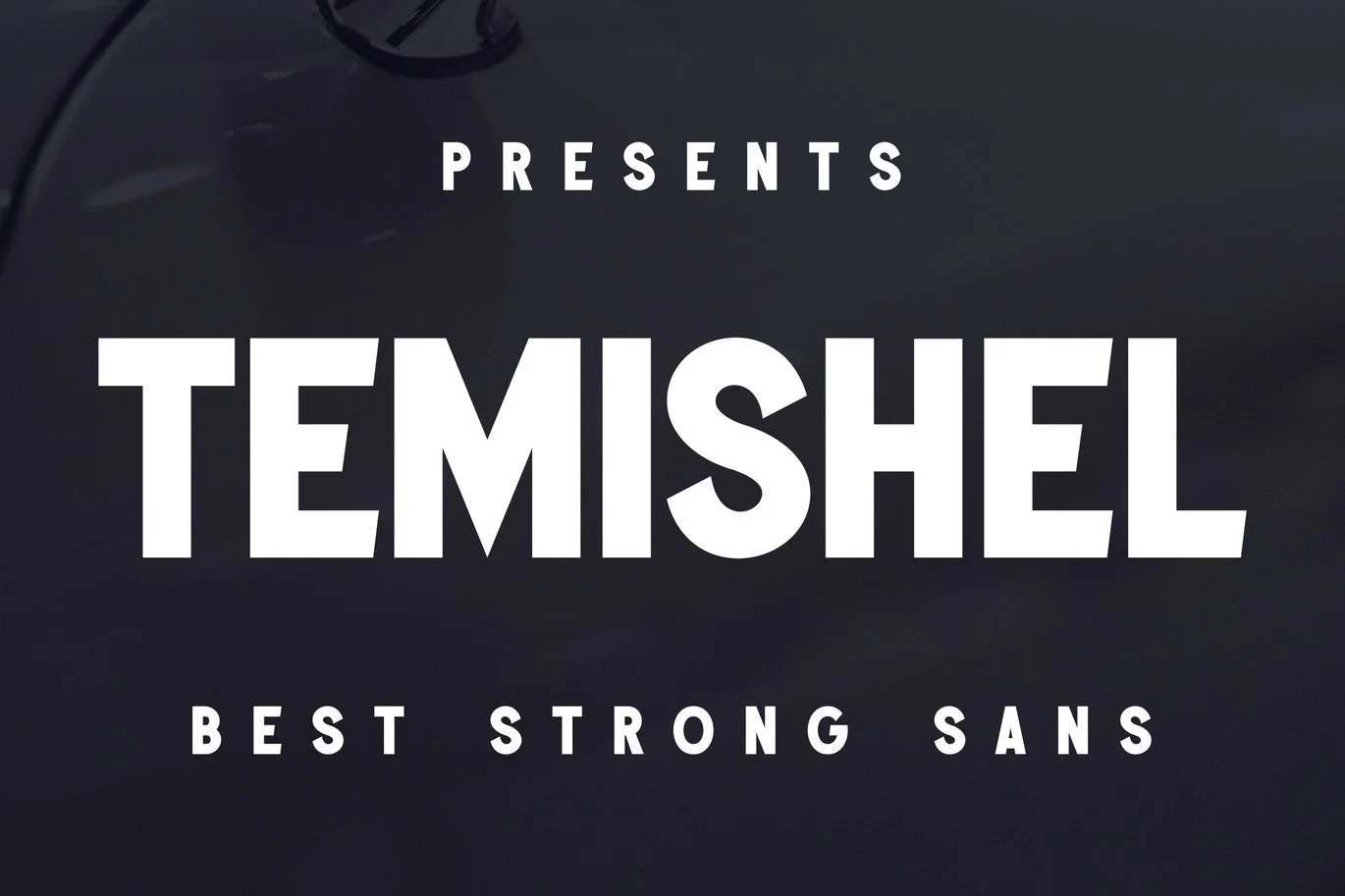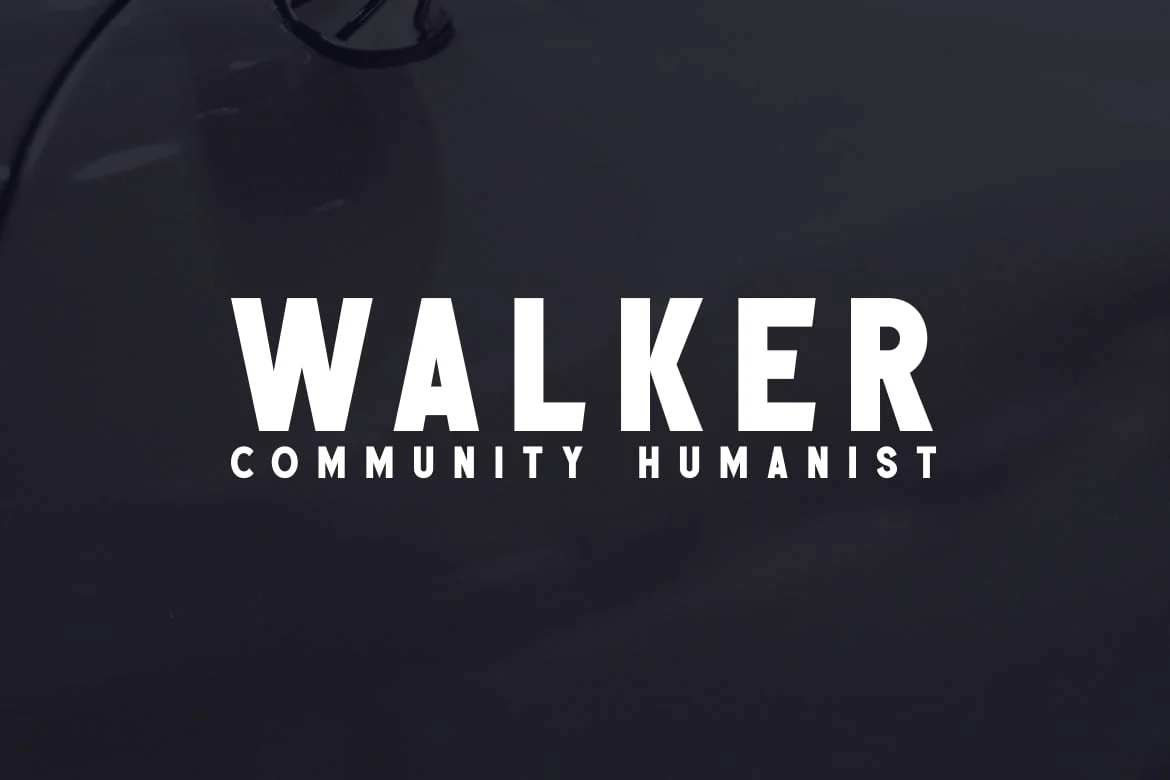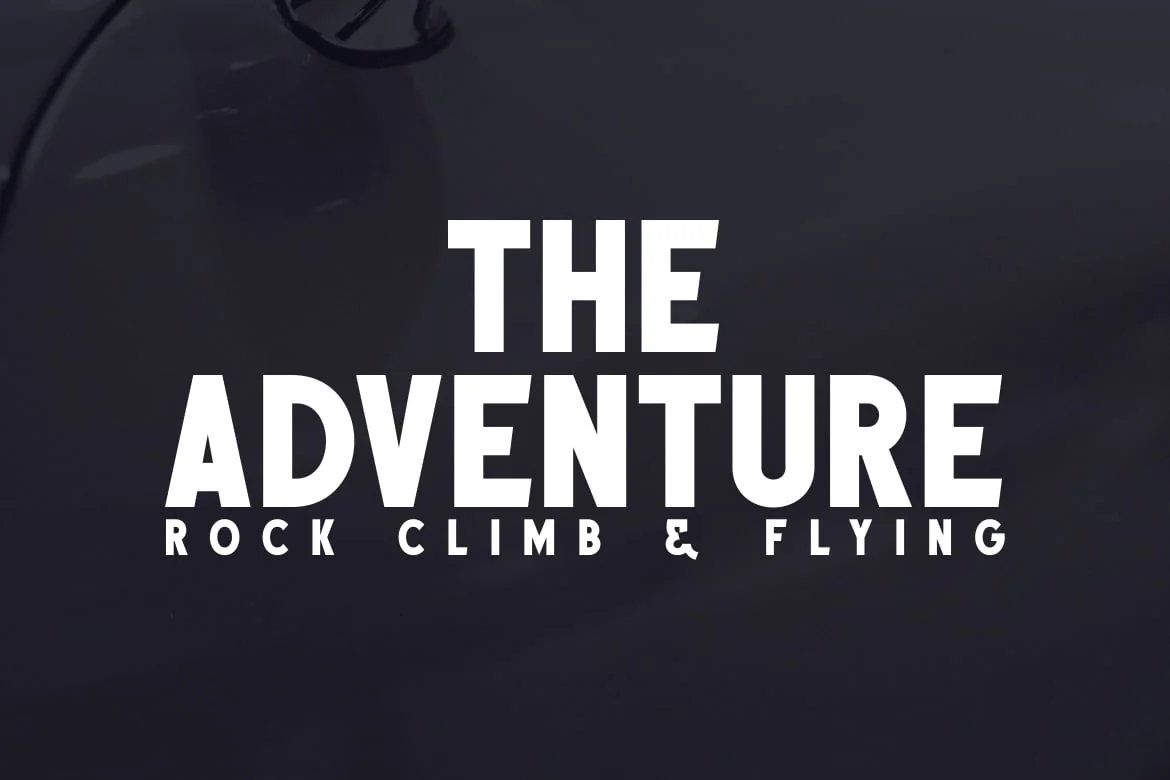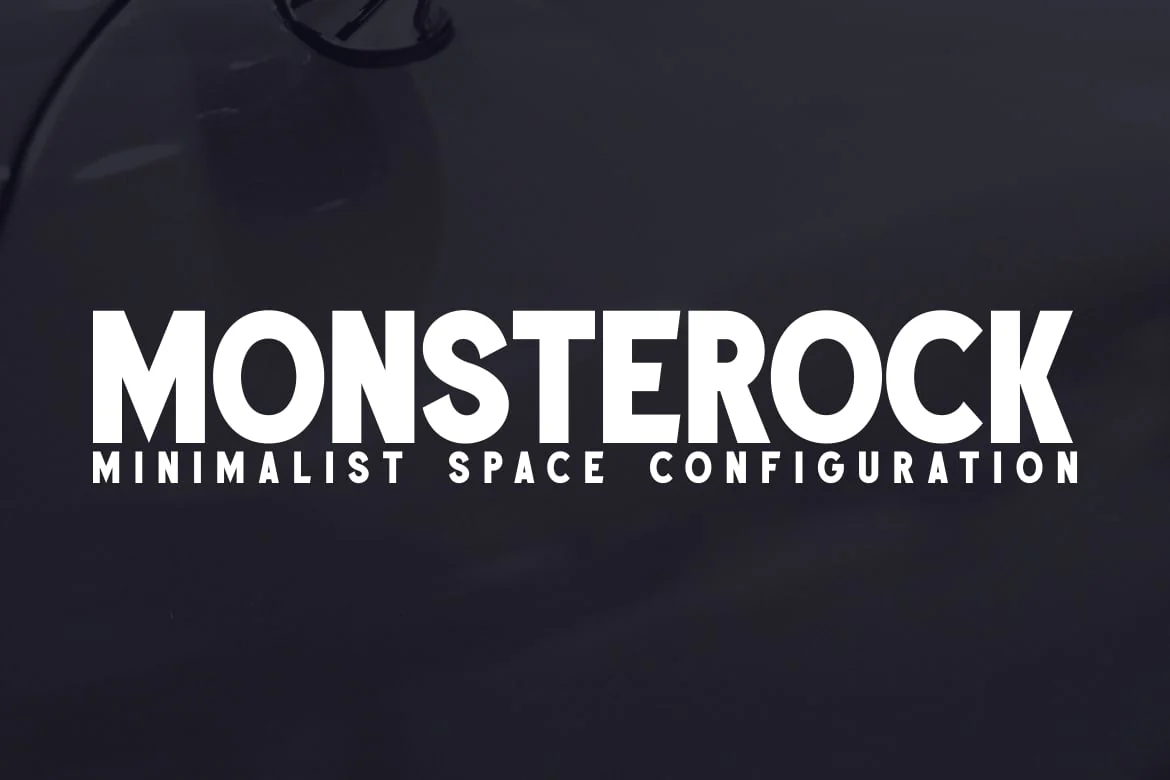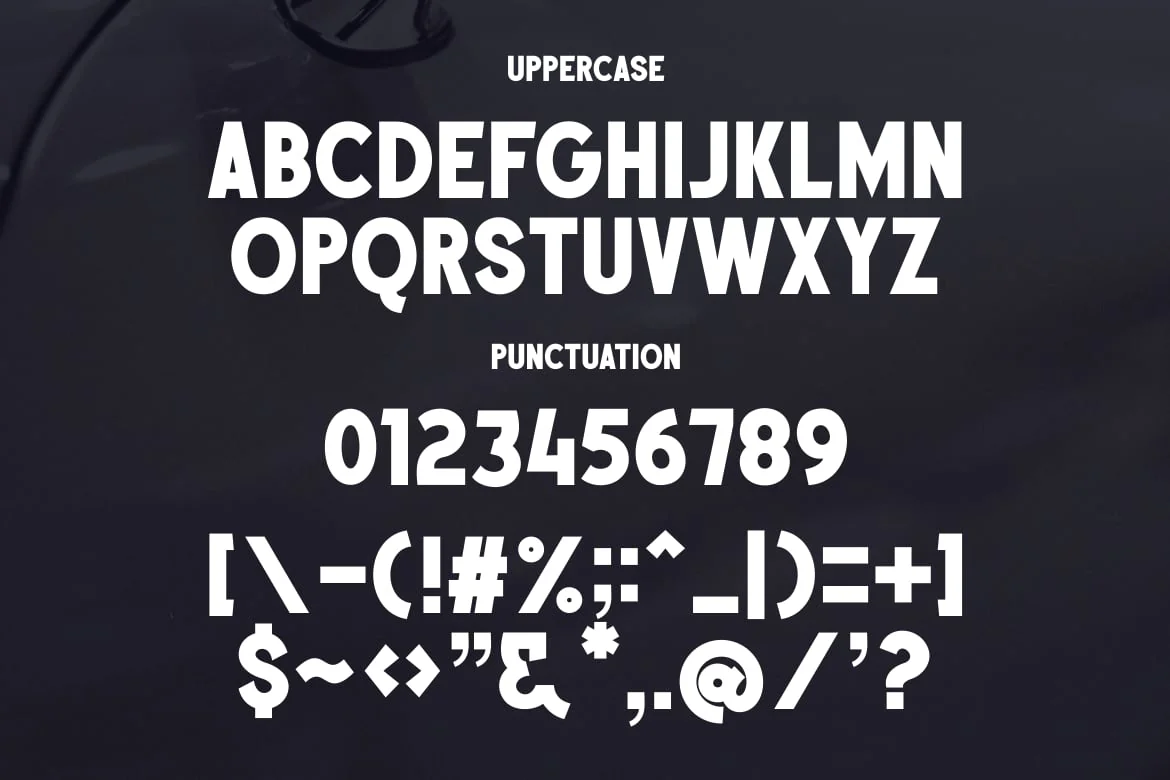
Temishel Font
Is a sans font mix of wild and rock editions.
This font has special cuts on the glyphs, thus adding a strong reaction to the writing.
The use of spacing set in design processing software also affects the strength of the font.